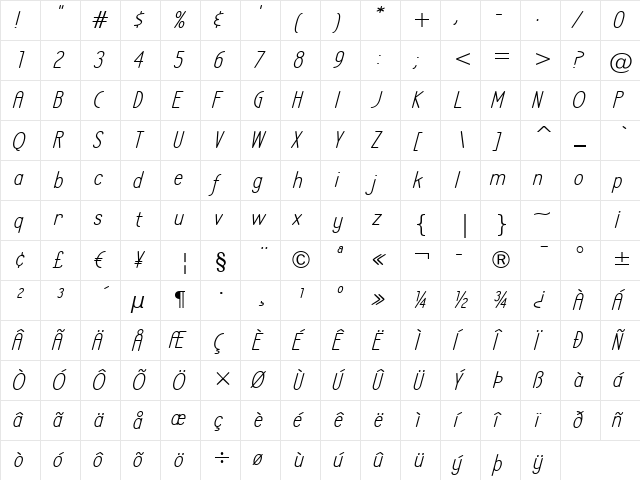
LA Headlights BTN Italic
Design Context for LA Headlights BTN Typeface
LA Headlights BTN is a composed and adaptable typeface that performs quietly and consistently across a wide range of design contexts. The slanted form adds forward momentum and visual energy. Its slender proportions lend an understated elegance to any composition.
Pro Tip: Try LA Headlights BTN for annotation and caption copy alongside an upright companion — the contrast in angle creates a dynamic but ordered typographic system.